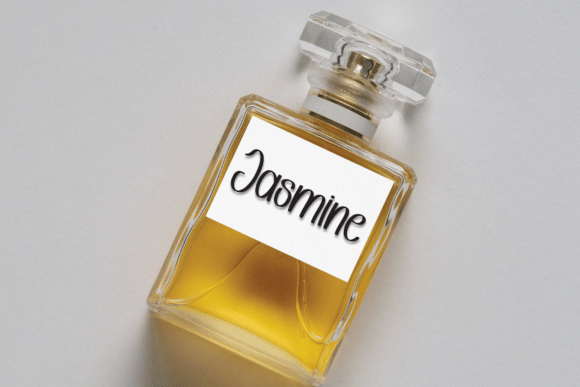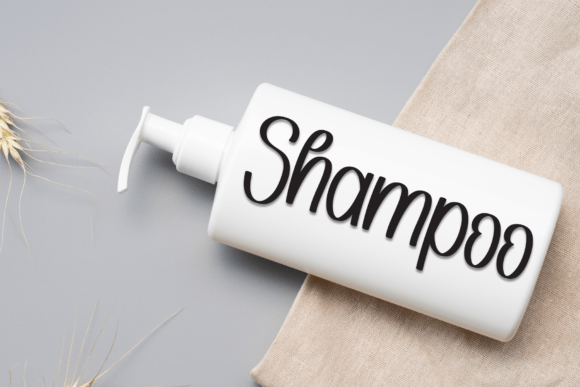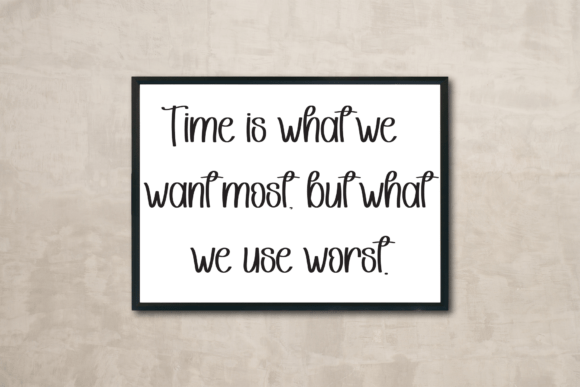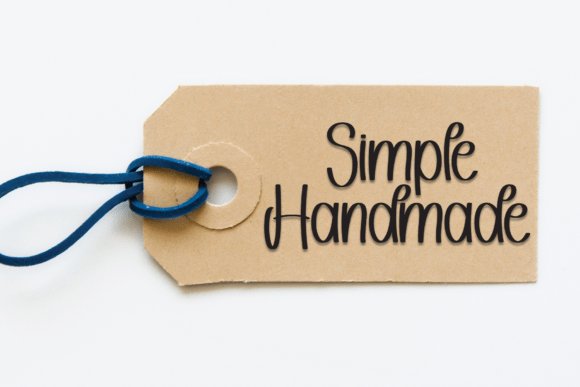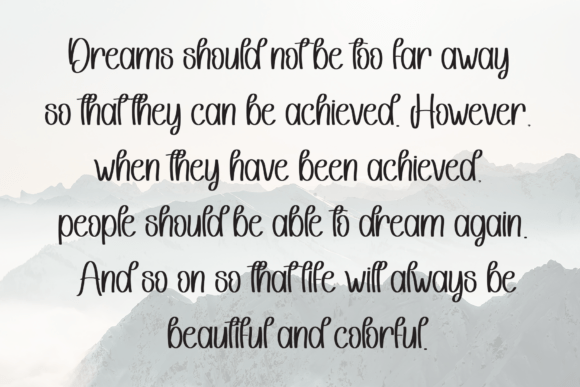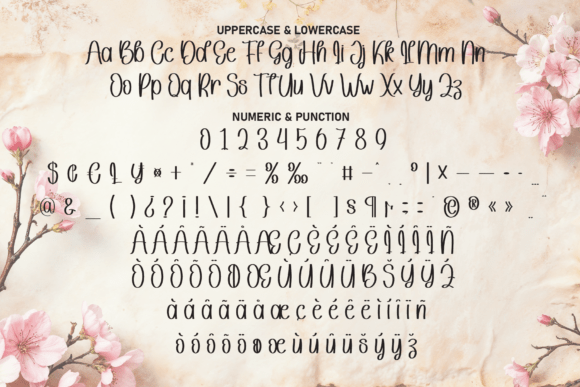
Introduction to Pinky History Font
Have you ever stumbled upon a beautiful handwritten note from a loved one, and felt an instant rush of emotions? For designers, that feeling can be replicated with the right typeface. The Pinky History Font is a stunning handwritten script font that combines elegance with a modern flair, making it a valuable addition to any design project.
Whether you’re working on a branding project, creating invitations, or crafting social media posts, the Pinky History Font is the perfect design resource to add a personal touch. Its flowing strokes and organic curves bring warmth and sophistication to any project, making it a high-quality choice for designers looking to elevate their creative work.
Pinky History Font
- Unique, hand-drawn design with a touch of elegance and sophistication, making it perfect for creative projects.
- High-quality font with transparent background, ideal for use on various design resources and backgrounds.
- Designed to be versatile, the Pinky History Font is perfect for use in titles, headings, and body text, adding a touch of personality to any creative project.
- With its unique characteristics and high-quality design, the Pinky History Font is an excellent addition to any design resource, offering endless possibilities for creative expression.
Honest Review: Pinky History Font
What works well is the unique aesthetic of this font. It has a vintage feel to it, which makes it perfect for historical or nostalgic-themed projects. The transparent background is a plus, allowing for easy integration with other design elements.
The font’s high quality is evident in its crisp lines and smooth curves. It’s a great addition to any design library, and I appreciate that it’s free to download.
- ✨ Unique aesthetic with a vintage feel
- ✨ Transparent background for easy integration
- ✨ High quality with crisp lines and smooth curves
However, I do have a few limitations to mention: ⚠️ The font may not be suitable for projects requiring a more modern or minimalist look. Additionally, the font’s boldness may be a bit overwhelming in certain contexts.
Overall, I’m quite impressed with the Pinky History Font. While it may not be the perfect fit for every project, it’s a valuable addition to any design library. I’d recommend it for anyone looking for a unique and high-quality font for their creative project.
Pinky History Font
Pinky History Font is a unique and stylish font perfect for designers and artists working on creative projects. This free download is available for instant use in various design applications.
Tips for Getting the Most Out of Pinky History Font
Use Pinky History Font on a transparent background to give your design a subtle yet elegant look. Experiment with different font sizes and colors to create a unique visual effect.
Pinky History Font is perfect for:
- Brand logos and identity design
- Photography captions and quotes
- Web design and UI elements
Alternatives to Pinky History Font
Great Vibes Font is a beautiful, high-quality script font perfect for creative projects that require a touch of elegance. It’s ideal for wedding invitations, greeting cards, and other design elements where a romantic feel is desired.
Great Vibes Font offers a more refined and sophisticated look compared to Pinky History Font, making it a great choice for designers who want to add a touch of luxury to their designs. It’s available for free download and comes with a transparent background, making it easy to integrate into any design project.
Carolyna Pro Font is a modern, high-quality font that’s perfect for designers who want to add a touch of sophistication to their creative projects. It’s ideal for branding, logos, and other design elements where a clean and elegant look is desired.